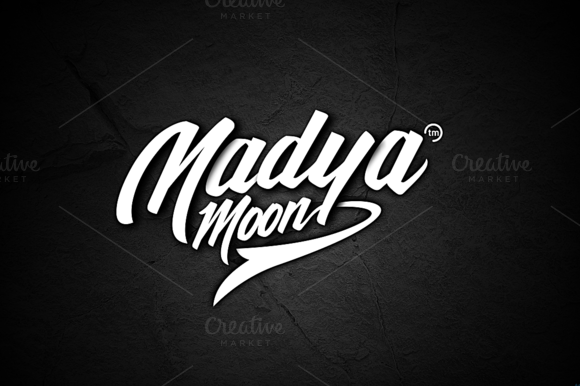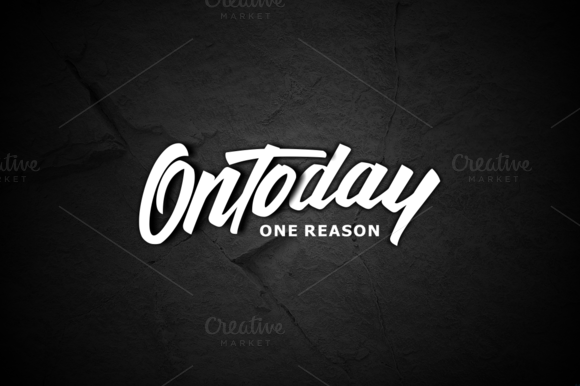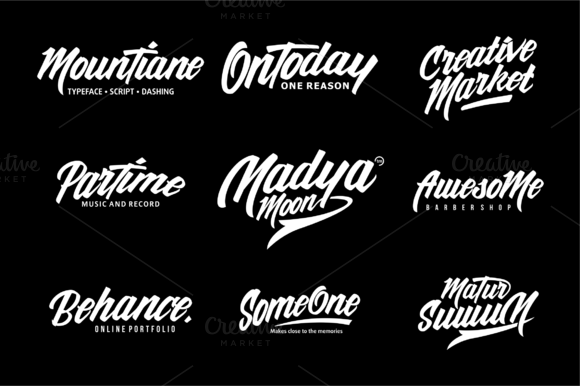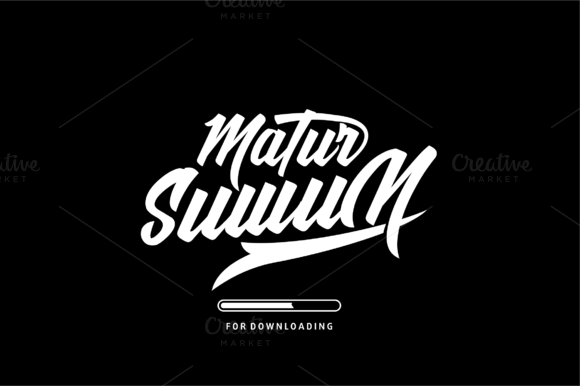
MounTiane Typeface
MounTiane- is a typeface inspired by handwritten powerful and elegant style , the typeface is suitable for making logotype , typograpy , and etc.